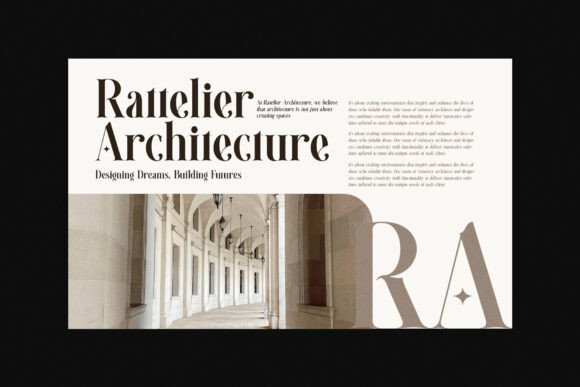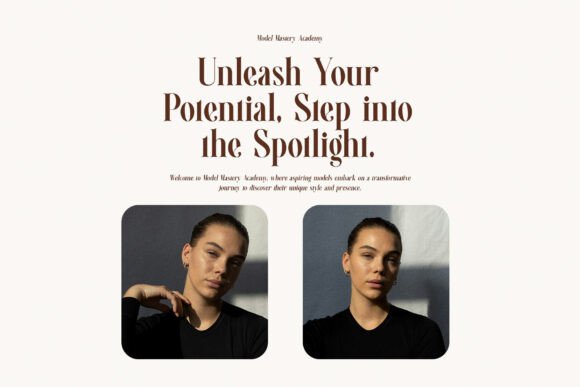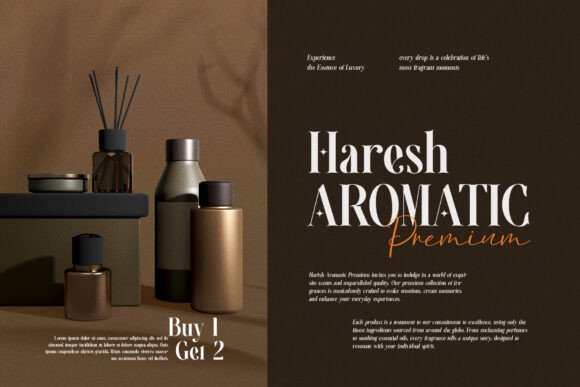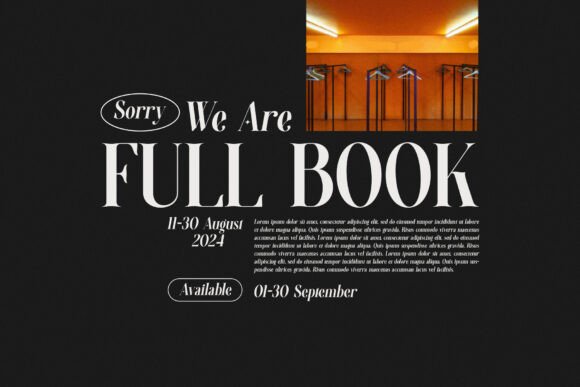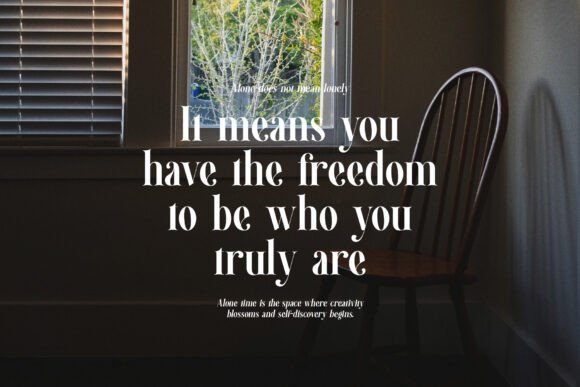
Introduction to Seagle Font
Have you ever been working on a creative project, pouring your heart and soul into it, only to feel like something’s missing? You’ve got the perfect concept, the ideal color palette, but the typography just doesn’t seem to tie everything together? That’s where the Seagle Font comes in – a sophisticated ligature serif designed to elevate your design to the next level.
As a valuable resource for designers, the Seagle Font offers a high-quality, luxury feel that’s perfect for a variety of formal applications. From logos and headlines to invitations and packaging, this unique typeface is sure to make your design stand out from the crowd.
Key Features of Seagle Font
- Unique, modern design with a transparent background for versatile application
- Includes a range of characters, including uppercase and lowercase letters, numbers, and punctuation
- Perfect for use in digital design, such as logos, icons, and graphics, as well as print materials
Honest Review: Seagle Font
I recently had the chance to work with the Seagle Font, and I must say it’s been a solid addition to my design resources. As a designer, I’m always on the lookout for high-quality fonts that can elevate my creative projects. Seagle Font definitely delivers on that front.
One of the things that stands out about this font is its versatility. It’s perfect for a wide range of design projects, from logos and branding materials to digital products and websites. Plus, it’s available for a free download, which is always a bonus.
Here are some of the things that work well with the Seagle Font:
- ✨ High-quality design: The font is crisp and clean, making it perfect for a variety of design projects.
- ✨ Versatile: As I mentioned earlier, Seagle Font is great for a wide range of design projects.
- ✨ Transparent background: The font comes with a transparent background, making it easy to use in any design project.
Of course, no font is perfect, and Seagle Font has its limitations:
- ⚠️ Limited character set: While the font is great for general use, it may not be suitable for projects that require a wide range of special characters.
- ⚠️ Not suitable for very small text: Due to its high-quality design, Seagle Font may not be the best choice for very small text sizes.
Overall, I’m impressed with the Seagle Font. It’s a solid addition to my design resources, and I’d definitely recommend it to other designers. Just be aware of its limitations and use it accordingly.
Tips for Getting the Most Out of Seagle Font
For optimal results, use Seagle Font in combination with other high-quality design resources. Experiment with different font sizes, colors, and layouts to create a unique visual effect.
Common Use Cases for Seagle Font
Seagle Font is suitable for a variety of creative projects, including logos, branding materials, and digital graphics. Its versatility makes it an ideal choice for designers and non-designers alike.